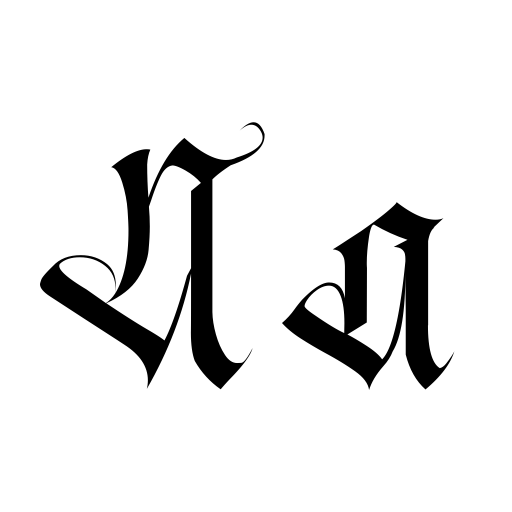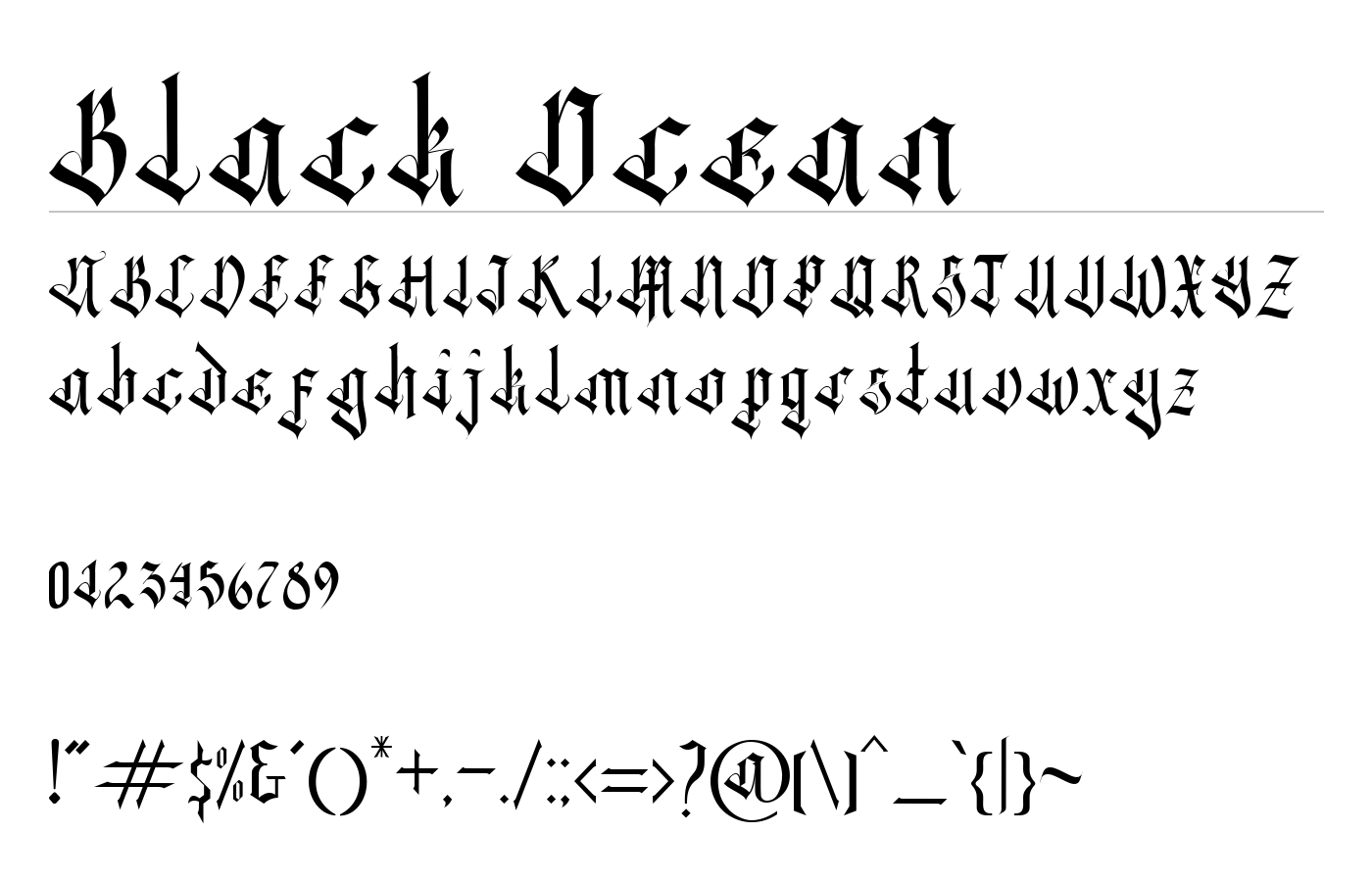
Black Ocean is a bold blackletter typeface with sharp, angular strokes and a dramatic, gothic flair. Its heavy weight and intricate letterforms give it a historic, medieval personality, making it ideal for designs seeking a strong, vintage, or mysterious vibe such as logos, posters, and editorial headlines. This font works best where bold impact and distinctive old-world style are desired, rather than for body text or digital reading.
Black Ocean Font
About Black Ocean Font
| Font family | Black Ocean Font |